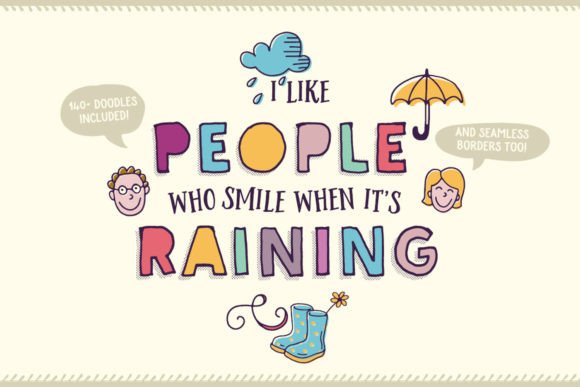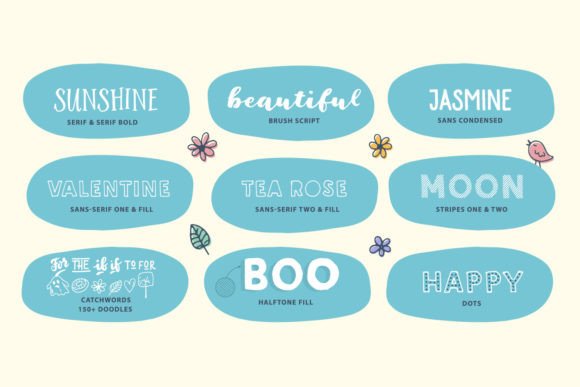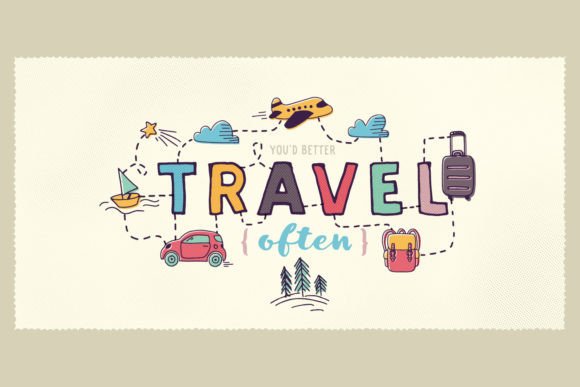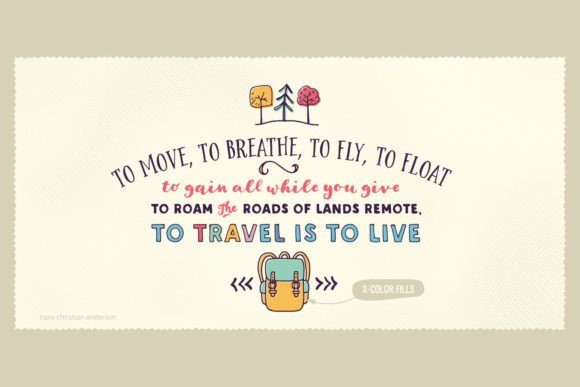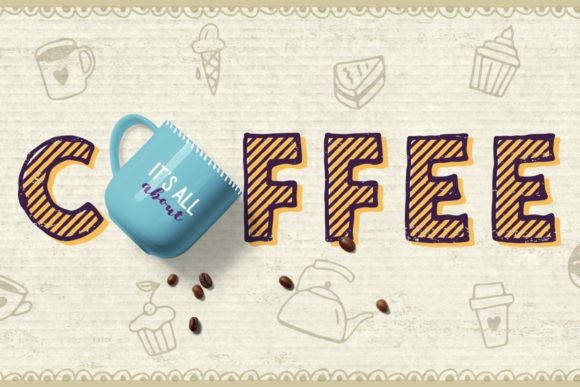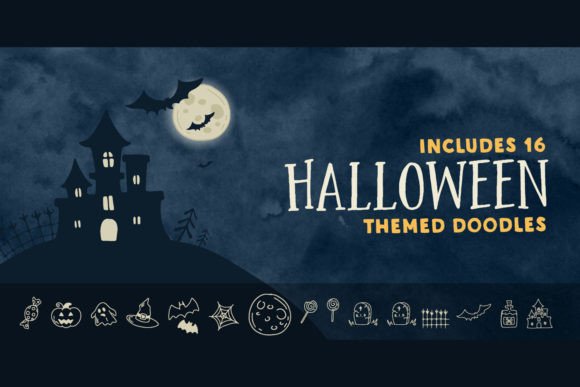
Sunshine Daisies
About Sunshine Daisies
Sunshine Daisies is an elegant and delicate handwritten font. This font is accurately crafted and highly detailed. Whether you are using it for posters, invitations, or anything else, this has to be a part of your font library, as it has the potential to enhance any creation. Keep in mind that the font is PUA encoded, meaning that you can access all delightful glyphs and swashes effortlessly.